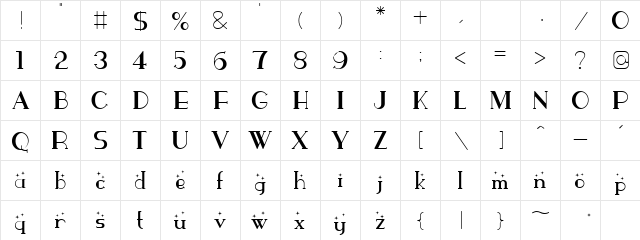
ParismatchBright Regular Font Preview
ParismatchBright Regular
ParismatchBright Regular Font Details
Design Context for ParismatchBright Typeface
ParismatchBright offers clean, dependable letterforms without strong stylistic allegiance, making it a practical choice for designers who need flexibility.